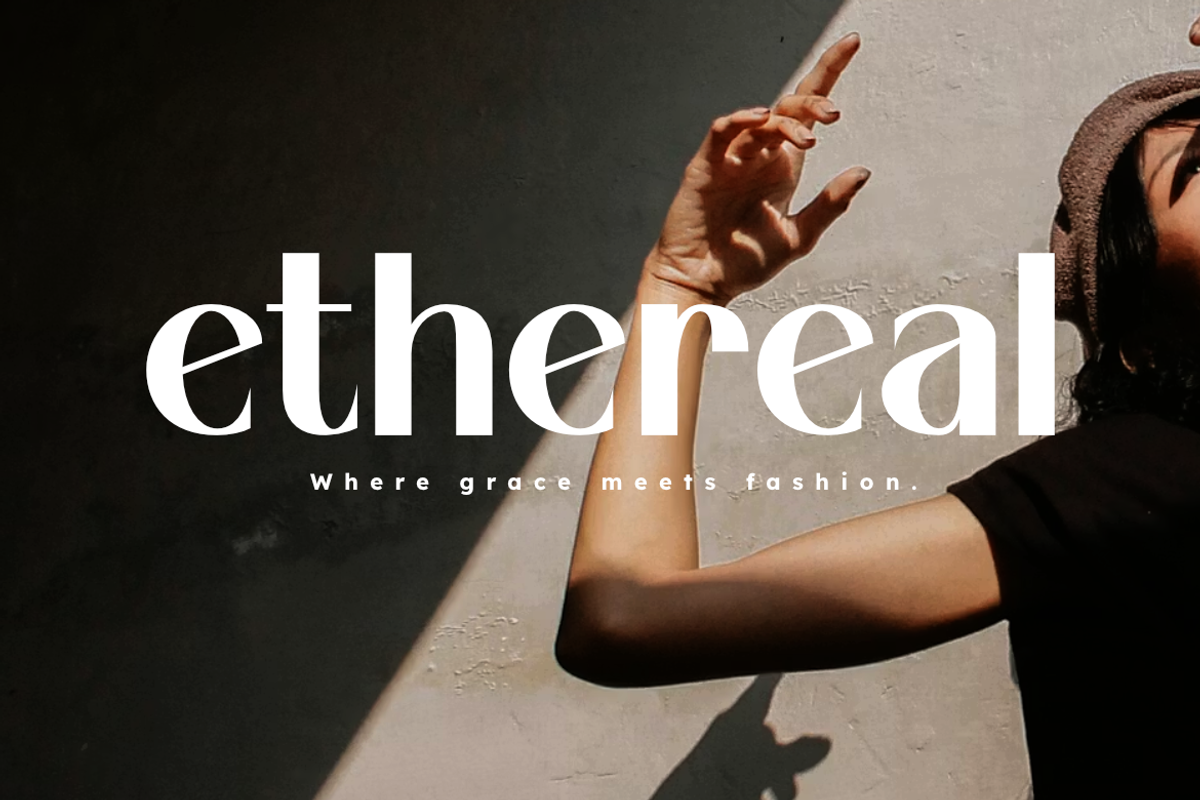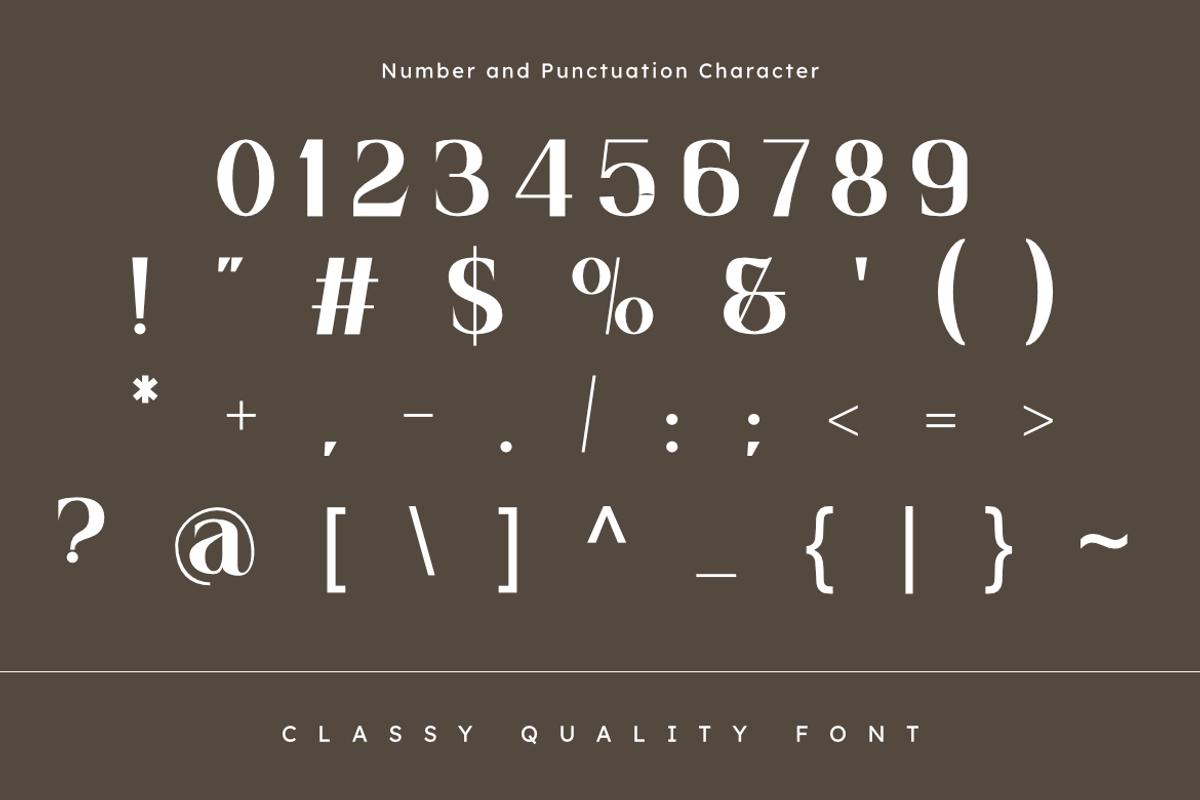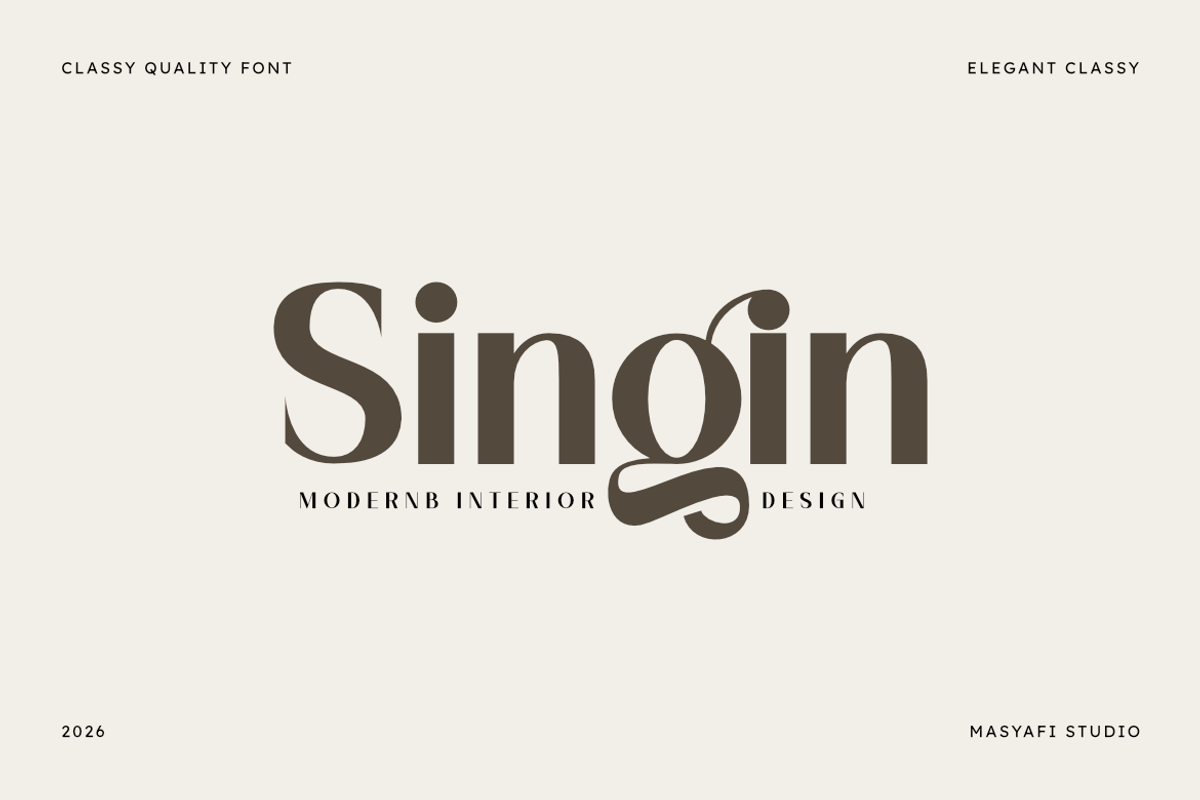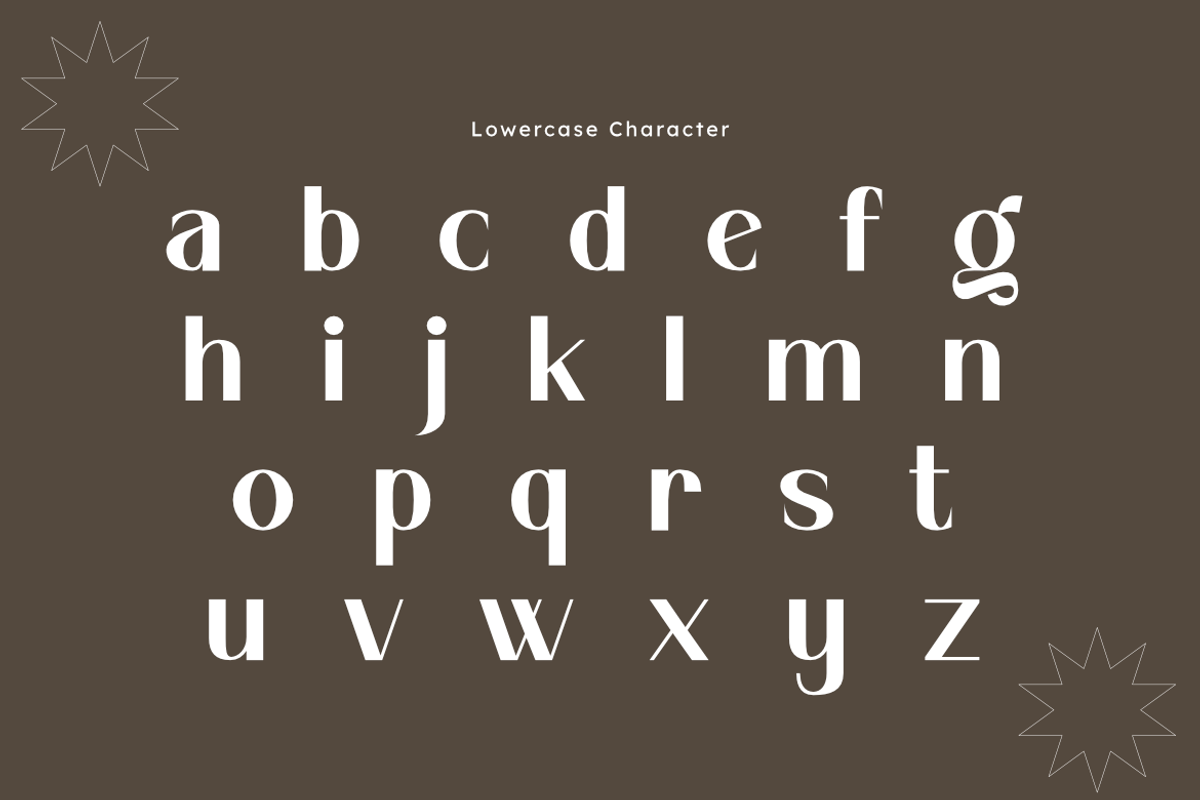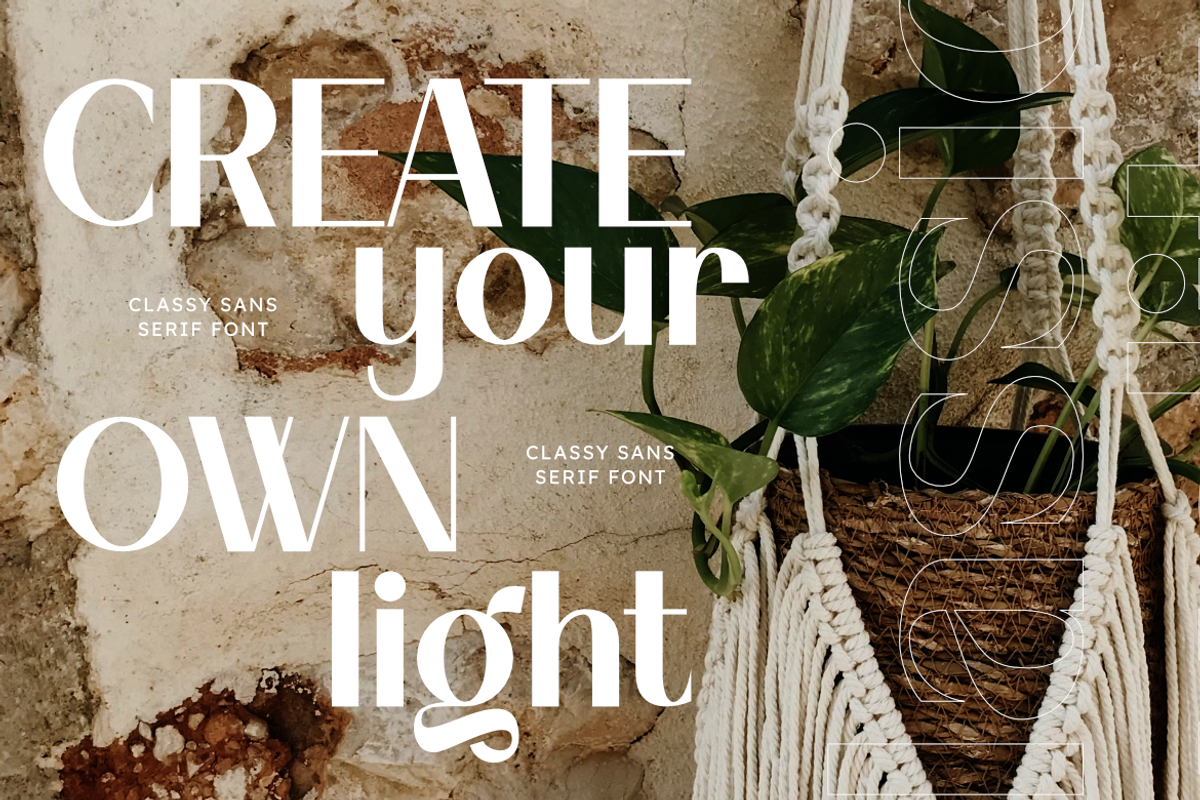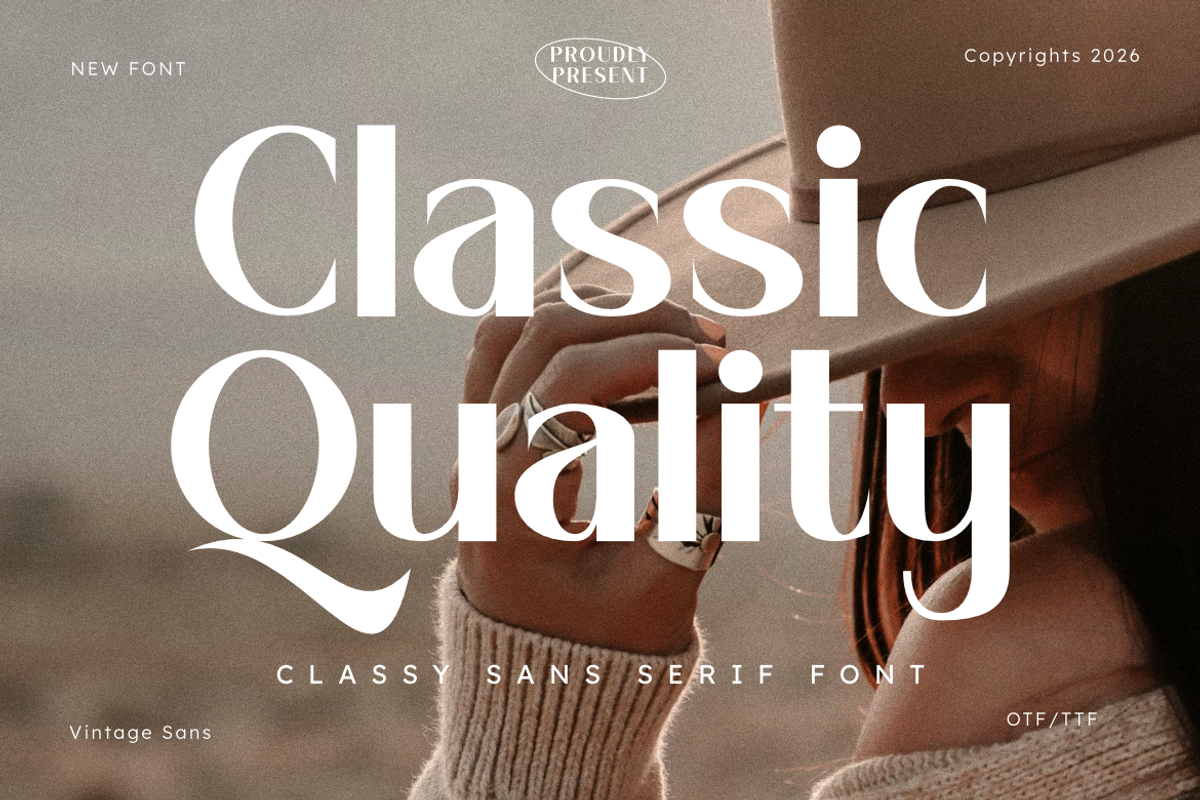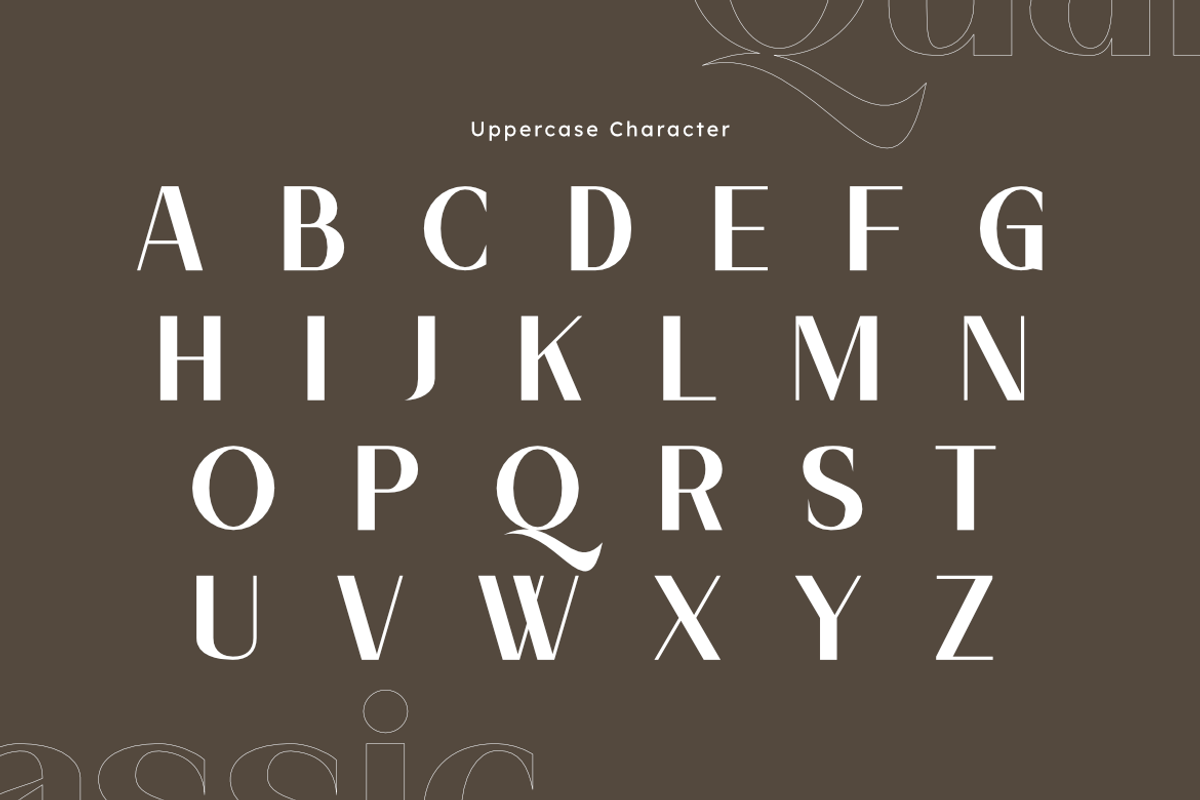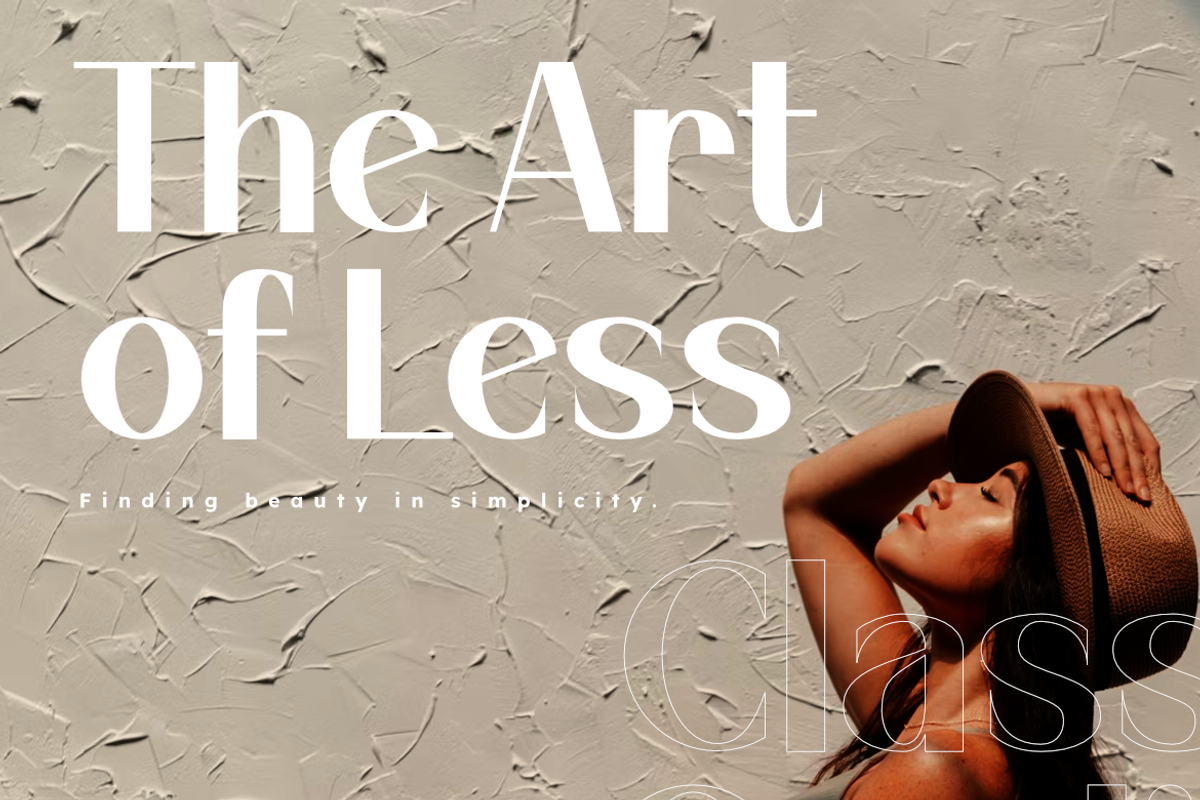
Classic Quality | Classy Sans Serif
Classic Quality | Classy Sans Serif Font
Elevate your design projects with Classic Quality, a sophisticated sans serif font meticulously crafted for precision and luxury. Blending the nostalgic feel of vintage typography with clean, modern lines, Classic Quality provides a premium edge to your visual identity.
Whether you are building a brand for a high-end fashion label, designing immersive editorial layouts, or creating polished corporate materials, this font delivers a sharp, professional finish. Its balanced curves and refined silhouettes ensure that your message commands attention in both digital and print environments.
- Perfect for high-impact headlines and high-end professional branding.